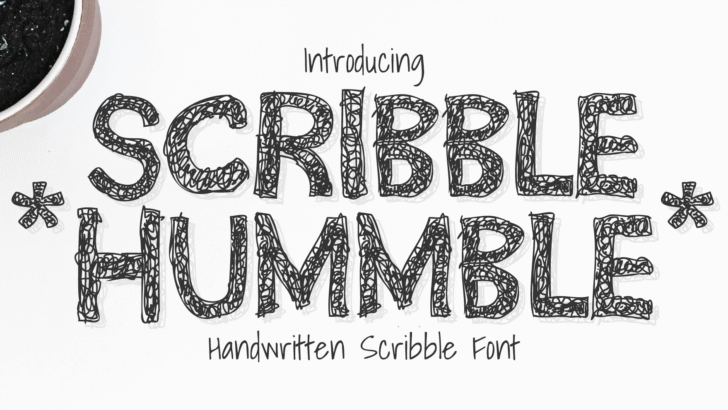
Scribble Hummble is a captivating handwritten font crafted with abstract, scribbled outlines — where every stroke feels unique and full of life. Its unconventional and irregular design radiates pure creativity and individuality, making it perfect for projects that crave a distinctive, artistic touch. With its mesmerizing, freeform appearance, Scribble Hummble adds a bold, expressive flair to any design …